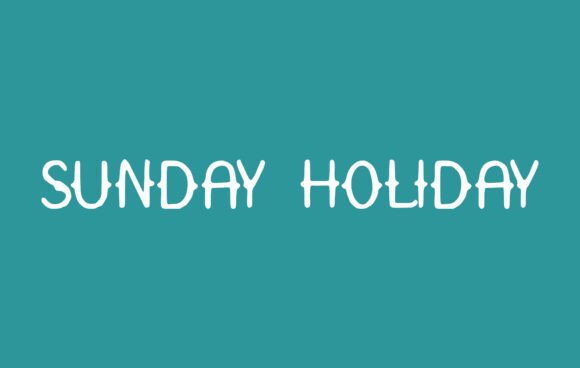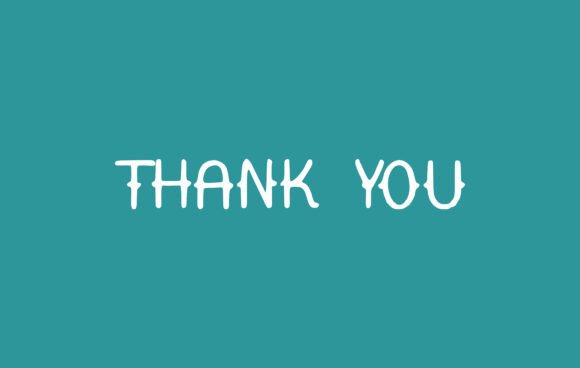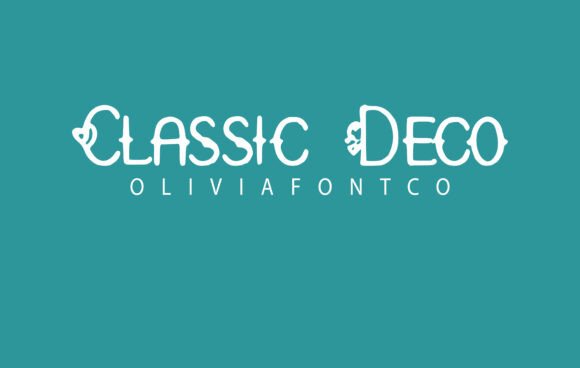
Introducing Classic Deco Font: Elevate Your Designs with Timeless Elegance
In the world of typography, few fonts capture the essence of classic romance and sophistication as effortlessly as the Classic Deco font. This authentic handwritten font is a masterpiece of modern design, blending the elegance of the past with the versatility needed for contemporary creative projects. Whether you’re a designer looking for the perfect typeface for your next client’s branding, a crafter seeking to add a touch of vintage charm to your handmade goods, or a digital artist aiming to infuse your artwork with a sense of nostalgia, Classic Deco font is poised to become your new favorite companion.
The Essence of Classic Deco Font
Classic Deco font is more than just a typeface; it’s an experience. It brings to the table a romantic touch that is hard to find in today’s digital age. Its authentic handwritten style lends a personal and intimate feel to any project it’s used in, making it instantly more engaging and relatable. The font’s design is a careful balance of fluidity and precision, ensuring that it remains highly legible whether used as a title or body text. This versatility is one of its most compelling features, making it suitable for a wide range of applications.
The potential applications for Classic Deco font are virtually limitless. Here are a few ideas to get you started:
- Magazine Headlines: Add a touch of glamour and sophistication to your magazine’s cover with Classic Deco font. Its elegant and eye-catching style is sure to draw readers in.
- Social Media: Stand out on social media platforms with eye-catching posts and stories. Classic Deco font’s unique charm can help increase engagement and make your content more memorable.
- Branding: Give your brand a distinctive voice with Classic Deco font. Its timeless elegance can help convey your brand’s values and aesthetic, setting you apart from the competition.
- Wedding Invitations: Add a romantic and vintage touch to your wedding invitations. Classic Deco font can help set the tone for a memorable and stylish wedding celebration.
- Cards and Stationery: Whether it’s a birthday card, a thank you note, or a formal letter, Classic Deco font can add a level of sophistication and warmth that’s hard to achieve with standard fonts.
Why Choose Classic Deco Font?
With so many fonts available to designers and crafters today, what sets Classic Deco font apart?
- Legibility: Despite its elegant and somewhat ornate appearance, Classic Deco font remains highly legible, even at smaller sizes. This makes it perfect for body text as well as headlines.
- Versatility: Its range of applications is unmatched. From digital projects to print materials, Classic Deco font adapts seamlessly to any medium.
- Timeless Appeal: Unlike trend-specific fonts that may quickly become outdated, Classic Deco font has a timeless quality that ensures your designs will remain stylish for years to come.
Classic Deco font is a treasure trove of creative possibilities. Its blend of romantic charm, elegance, and versatility makes it an indispensable tool for designers and crafters looking to elevate their projects. Whether you’re aiming to create stunning visual content, craft beautiful wedding invitations, or simply add a touch of sophistication to your social media posts, Classic Deco font is the perfect choice. Discover the difference it can make in your designs and let your creativity soar to new heights.